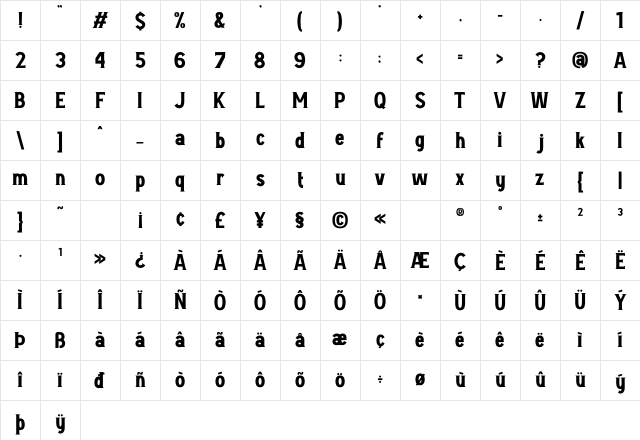
Burgs wears its vintage influences proudly, with letterforms that recall mid-century signage, classic packaging, and nostalgia-driven design.
Font Pairing: Combine Burgs with a simple slab or neutral sans - period-accurate companions reinforce the vintage feel without competing for attention.
Pro Tip: Lean into Burgs's period character by pairing it with aged paper textures, muted colour palettes, and vintage illustration styles.